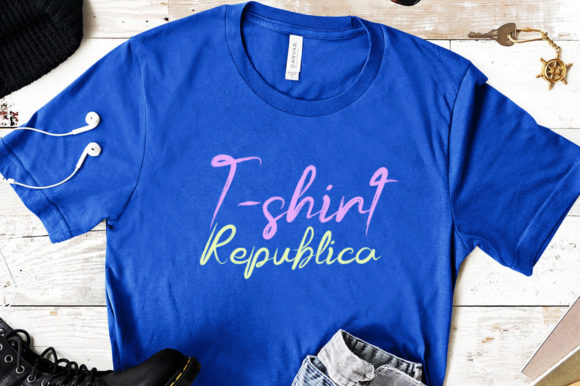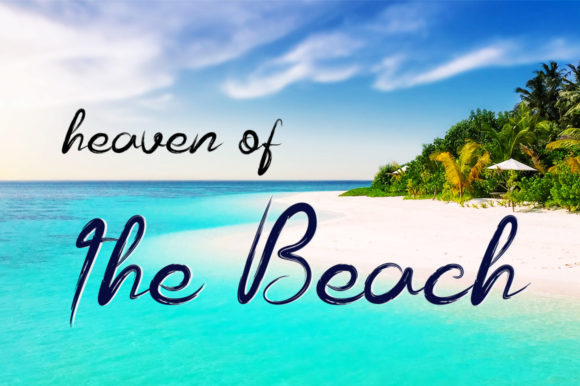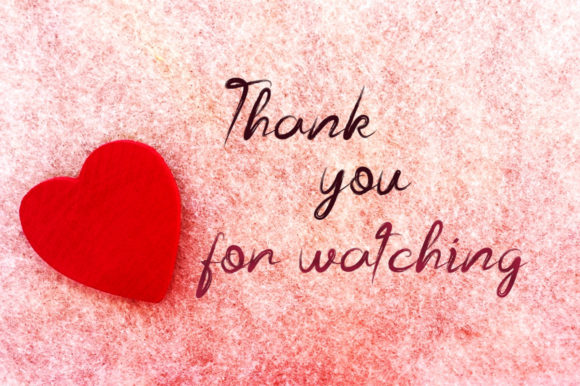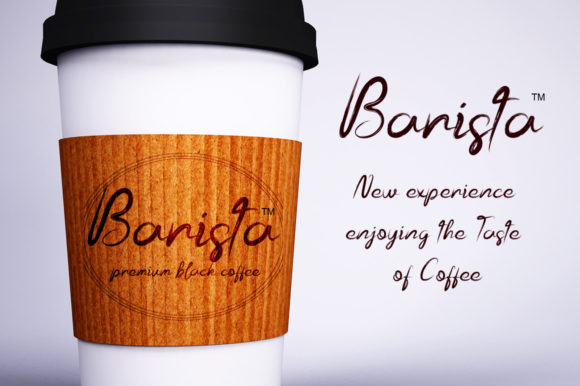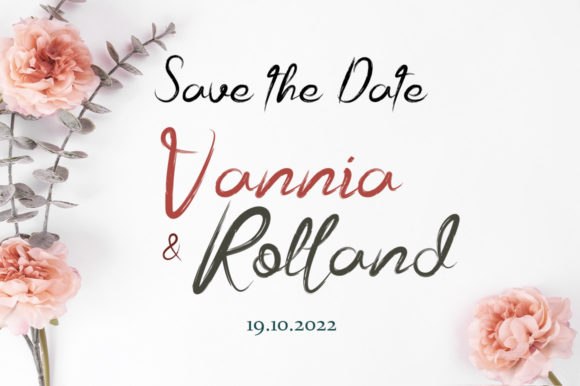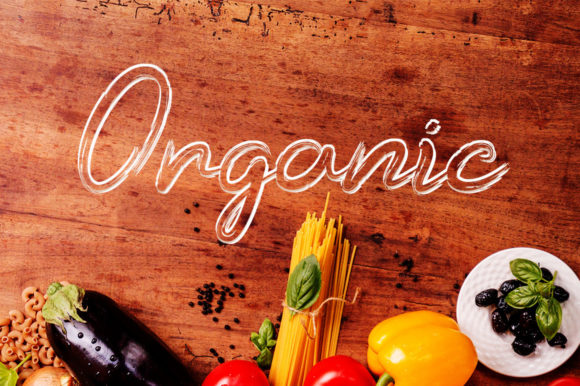
Blackscript Font
About Blackscript Font
Blackscript is a simple, sweet and cursive handwritten brush font. It’s perfect for logos, quotes, posters, playful lettering, for clothing, and every other design which needs a unique touch.